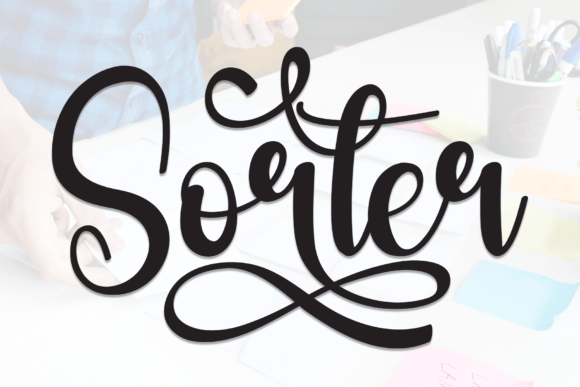
Welcome to the world of Sorter Font, a remarkable script font designed to make your designs stand out! Sorter is not just a font, but an experience crafted by the brilliant mind of William Jhordy, a master in the art of typography. With its sweet and friendly nature, Sorter will add a touch of whimsy and charm to your creations, making them absolutely irresistible.
Immerse yourself in the enchanting world of Sorter and discover the endless possibilities it holds. Whether you're a seasoned designer or just starting out, Sorter will effortlessly elevate your projects to new heights. Its beautiful curves and playful details will captivate your audience and leave a lasting impression. From wedding invitations to greeting cards, posters to branding materials, Sorter is the ideal choice for adding a personal touch to your designs.
Whether you're a seasoned designer or just starting out, Sorter will effortlessly elevate your projects to new heights. Its beautiful curves and playful details will captivate your audience and leave a lasting impression. From wedding invitations to greeting cards, posters to branding materials, Sorter is the ideal choice for adding a personal touch to your designs.
With Sorter Font, you'll unlock a world of creativity and self-expression. Its versatility knows no bounds, allowing you to explore various styles and themes. Whether you're aiming for a classic and elegant look or a more modern and playful vibe, Sorter will seamlessly adapt to your vision. Let your imagination soar as you create designs that are uniquely yours, leaving a lasting impact on your audience.